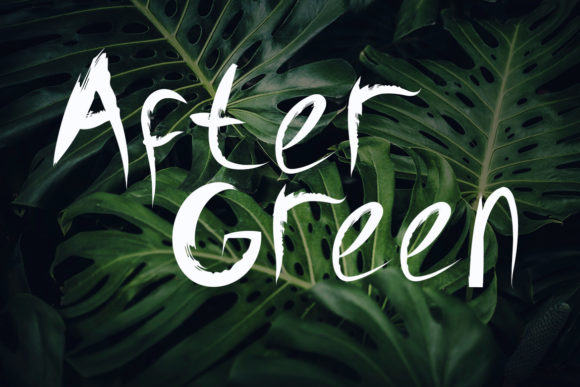
I still remember the frustration of working on a project, hours spent crafting the perfect design, only to realize that the font I chose wasn’t quite right. The client wanted something fresh, something urban, something that would make their brand stand out. I scoured the internet, tried out dozens of fonts, but nothing seemed to fit. That’s when I stumbled upon After Green, a cool, brushed, and urban styled display font that changed the game.
A Refreshing Solution: After Green Font
After Green is a beautiful and refreshing font, particularly crafted for those who need a unique look to their designs. Its brushed texture and urban feel make it perfect for designers, crafters, and creative hobbyists looking to add a touch of edginess to their work.
- ✨ Unique brushed texture that adds a touch of urban grit to any design
- ✅ Extensive character set, including OpenType features and stylistic alternates
- ✅ Perfect for display text, headings, and titles
⚠️ While After Green is a stunning font, it’s not suitable for body text or long-form content. Its uniqueness is best showcased in headings and titles. 🤔 Additionally, some users may find the brushed texture a bit too distressed for their taste.
The Designer Inspiration Behind After Green
After Green was designed by a team of creatives who wanted to capture the essence of urban grit and edginess. Inspired by city streets, street art, and industrial landscapes, they crafted a font that would reflect the attitude and swagger of modern city life.
| Font Name | After Green Font |
| What type of designs is After Green best suited for? | After Green is perfect for display text, headings, and titles in designs that require a bold, urban look. |
| Can I use After Green for body text or long-form content? | No, After Green is not suitable for body text or long-form content. Its uniqueness is best showcased in headings and titles. |
| Does After Green support OpenType features and stylistic alternates? | Yes, After Green has an extensive character set, including OpenType features and stylistic alternates. |